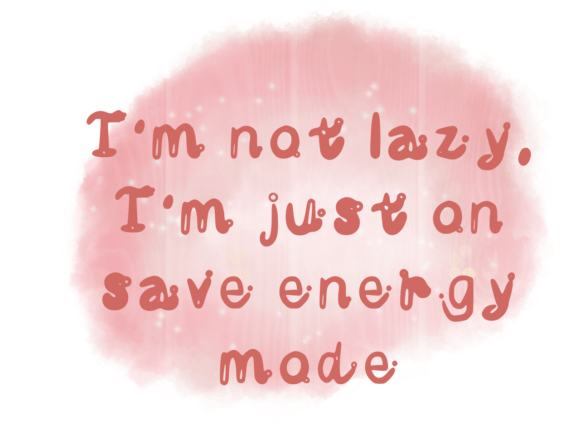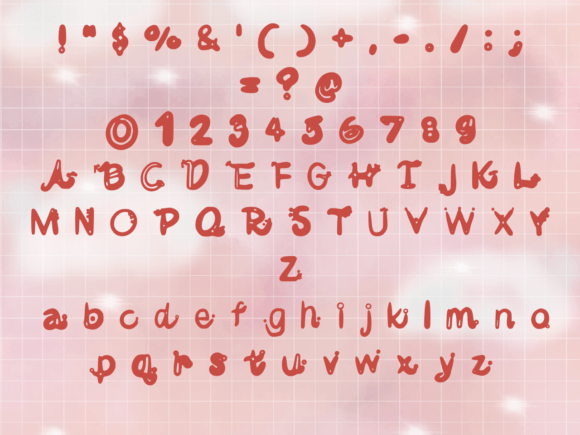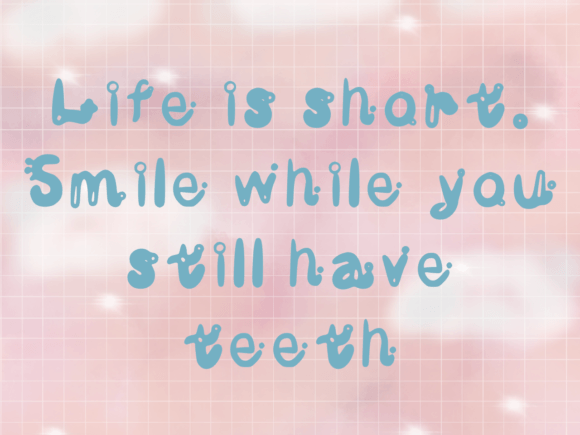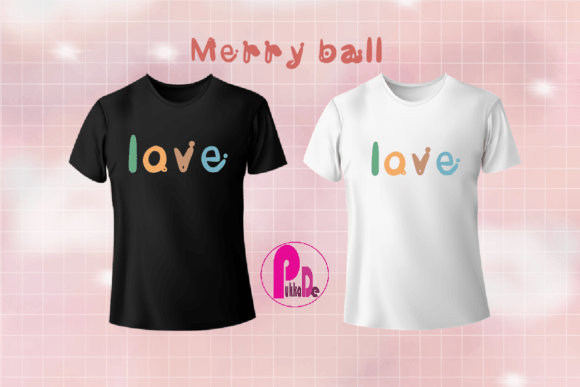
Introduction to Merry Ball Font
Have you ever stared at a blank canvas, eager to bring your creative vision to life, only to be held back by the perfect font to match your mood? This is where the Merry Ball Font comes in – a delightful, handwritten font that adds a touch of whimsy to any project. Its playful curves and quirky charm make it the perfect addition to your design toolkit.
As designers, we’re always on the lookout for high-quality design resources that can elevate our work and make it stand out. The Merry Ball Font is a valuable asset for any creative project, whether you’re working on a digital design, a social media campaign, or even a simple greeting card. With its transparent background and free download option, this font is accessible to designers of all levels and skill sets.
Key Features of Merry Ball Font
- High-quality design resource ideal for creative projects, offering a unique and festive touch.
- Perfect for adding a playful and merry touch to holiday-themed designs, cards, and other creative projects.
Honest Review: Merry Ball Font
As a designer, I’m always on the lookout for high-quality fonts that can elevate my creative projects. The Merry Ball Font is one such find. I downloaded it for free, and I must say, it’s a great addition to my design resource collection.
What works well about the Merry Ball Font is its playful and whimsical feel, making it perfect for projects that require a touch of fun and personality. The font is available in a transparent background, which is a plus for designers who want to have more flexibility with their designs.
- ✨ High-quality design: The Merry Ball Font is well-designed and has a professional feel to it.
- ✨ Versatile: It can be used for a variety of creative projects, from invitations to social media graphics.
However, I do have some reservations about the Merry Ball Font. One limitation is that it’s not available in as many font weights as I would like. Additionally, the font can be a bit too playful for more formal projects.
Overall, I’m impressed with the Merry Ball Font, and I would recommend it to designers who are looking for a fun and creative font for their projects. While it may have some limitations, its high-quality design and versatility make it a valuable addition to any design resource collection.
Tips for Getting the Most Out of Merry Ball Font
To get the most out of the Merry Ball Font, use it on a transparent background to create a visually appealing design. You can also use the font in combination with other design elements to create a unique and eye-catching look.
The Merry Ball Font is commonly used in creative projects such as greeting cards, party invitations, and social media graphics. It’s also a great resource for designers who want to add a touch of whimsy and fun to their designs.